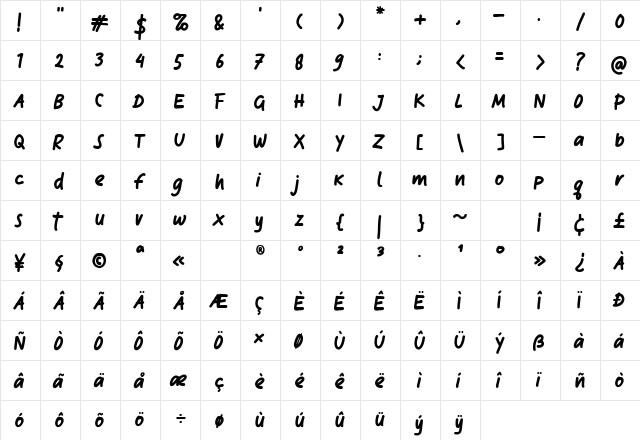
Klefont Mooncrat Regular
Design Context for Klefont Mooncrat Typeface
Klefont Mooncrat is a composed and adaptable typeface that performs quietly and consistently across a wide range of design contexts.